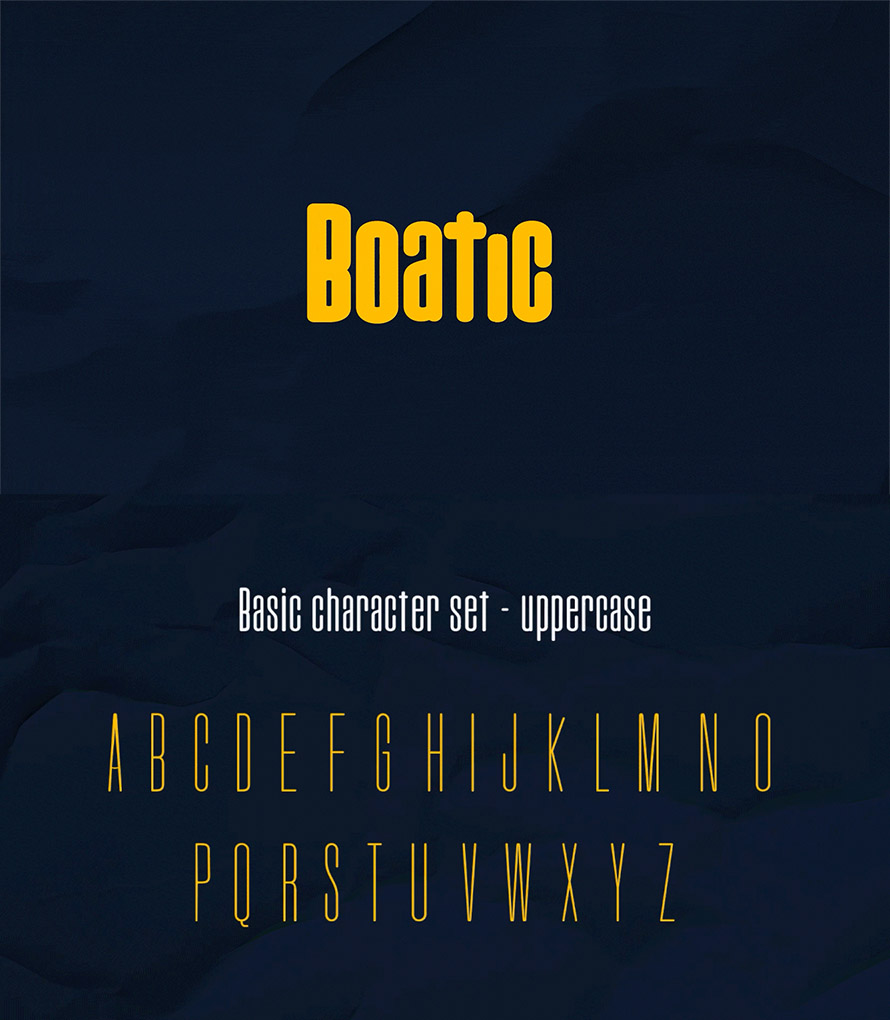
This fresh collection of free fonts is designed for creative professionals who want to elevate their work with unique and modern typefaces. Each of these new fonts has been carefully crafted to bring originality and versatility to typography and lettering projects, making them a must-try for designers seeking to refine their style and create remarkable visual impact.
Whether you are working on branding, advertising, lettering posters, social media graphics, or digital artwork, these free fonts provide the flexibility to adapt across different design contexts. Their clean lines, innovative shapes, and contemporary aesthetics ensure that your projects stand out while maintaining professional appeal. From bold display styles to elegant script designs, this collection covers a wide spectrum of creative needs.
Boatica is a bold and personality-filled display font, perfect for those looking to make an impact at first glance. With soft curves, rounded corners, and a striking presence, it combines modernity and charm in every letter.
DAMN Free Font
DAMN — Free font is a bold, modern typeface designed to make statements with impact. Its strong lines and edgy style suit posters, branding, and digital art, offering creativity without cost.
Super Trend Free Font
Super Trend free font combines modern minimalism with stylish versatility, perfect for logos, posters, and digital media. Its clean lines and contemporary aesthetic enhance designs effortlessly, giving creators a trendy yet professional typeface without any cost.
Beaver Punch Free Font
Beaver Punch Free Font delivers a bold, playful aesthetic with strong character and attitude. Perfect for eye-catching posters, logos, and creative projects, this free typeface adds energy, uniqueness, and impact to any design without cost.
Royalty Free Font
Royalty Free Font offers timeless elegance with modern usability, making it ideal for branding, invitations, and digital projects. Its refined style ensures sophistication, while being free allows designers creative freedom without limitations or licensing concerns.
Airlock Free Fonts
Airlock Free Font features a futuristic, sleek design inspired by sci-fi aesthetics. Perfect for posters, game titles, and digital artwork, it delivers bold impact and modern style, giving creators a unique typeface completely free of cost.
HIDROM Free Display Font
HIDROM Free Display Font brings a bold, contemporary style with sharp lines and strong presence. Ideal for posters, headlines, and branding, it captures attention instantly, offering designers a versatile and impactful typeface completely free to use.
August Shining Free Font
August Shining Free Font combines elegance with a modern handwritten charm, making it perfect for invitations, logos, and social media graphics. Its graceful strokes and stylish flow bring warmth and sophistication, all available completely free for creatives.
Super Maples Free Font
Super Maples Free Font blends playful charm with modern versatility, ideal for posters, branding, and digital designs. Its bold yet friendly style adds character and uniqueness, giving designers a creative, standout typeface entirely free to use.
Southern Barn Free Font
Southern Barn Free Font delivers rustic charm with a vintage-inspired design, perfect for farmhouse branding, signage, and creative projects. Its handcrafted feel adds warmth and authenticity, offering designers a distinctive typeface completely free for personal or professional use.
Southern Barn Free Font
Southern Barn Free Font embodies rustic elegance with a handcrafted, vintage-inspired style. Ideal for logos, signage, packaging, and posters, it brings warmth and authenticity to designs while remaining free, versatile, and creative for personal or commercial projects.
Olegos Typeface
Olegos Typeface presents a bold and modern aesthetic with clean lines and strong structure. Perfect for logos, posters, and branding, it enhances designs with confidence and versatility, offering creators a unique and impactful typeface free of charge.
Drybrush Free Font
Drybrush Free Font showcases an expressive, hand-painted style full of texture and energy. Ideal for posters, branding, and artistic projects, it adds a raw, creative edge while being completely free for designers to explore and use.
Memoir Free Font
Memoir is a free all caps typeface. Its inspired by the lettering on a book about the Olympic Games 1960 in Rome and therefore, well, has roman proportions. While the low contrast makes it appear quite temporary (matches neo- grotesque fonts well), the construction and especially the rounded inktraps open a gate into the past – sometimes blurry, sometimes sharp.